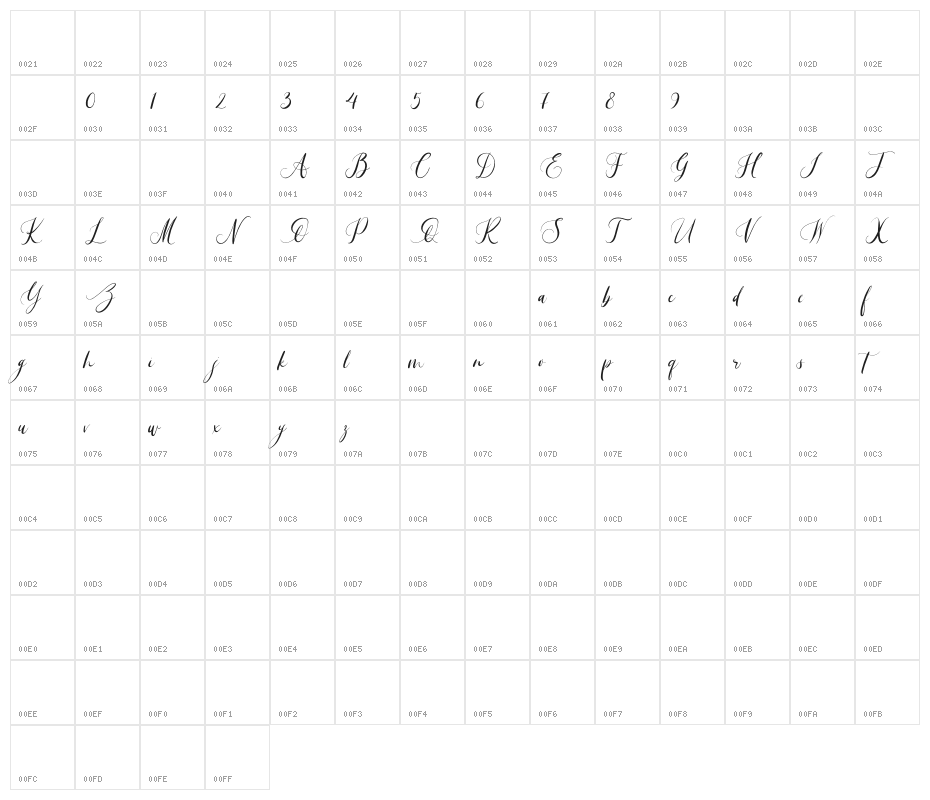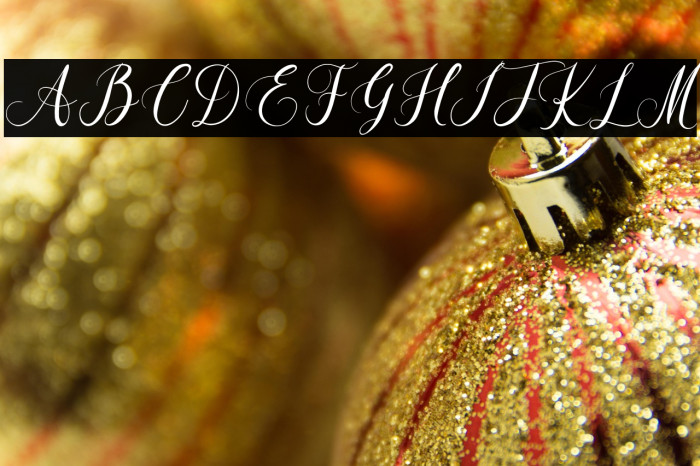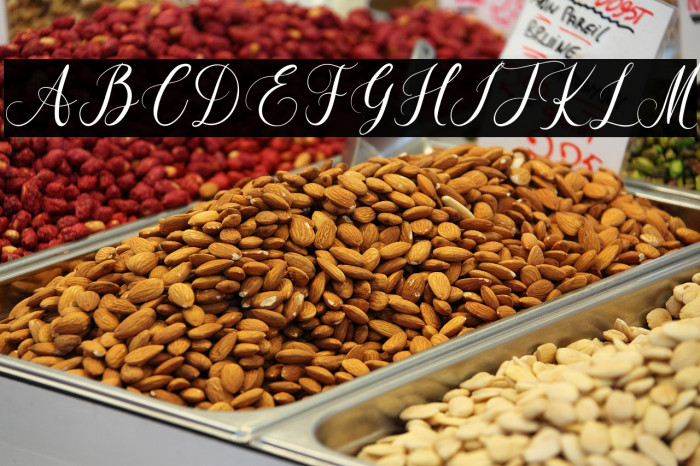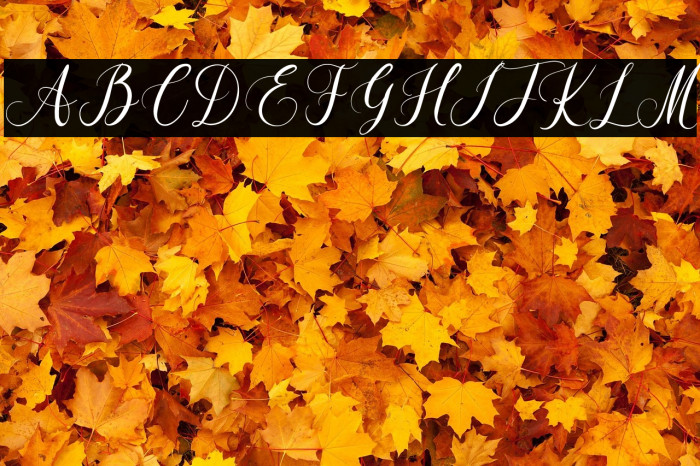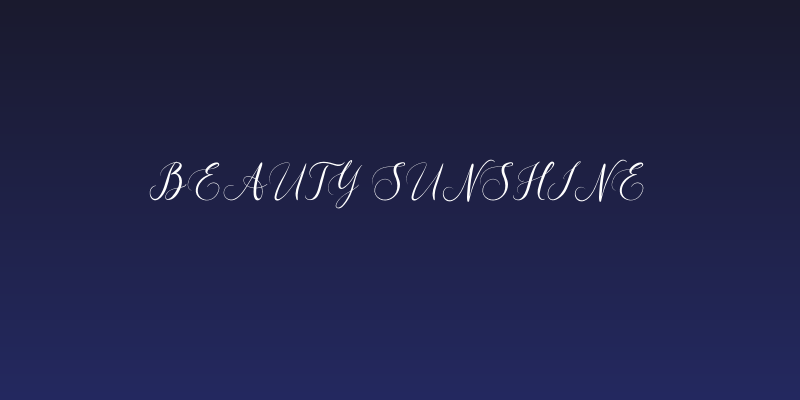
Beauty Sunshine Font
Beauty Sunshine Description
This elegant script font features a flowing, cursive style with high contrast between thick and thin strokes. The uppercase letters are ornate and sophisticated, with graceful loops and swashes that add a touch of luxury. The lowercase letters maintain a consistent style, offering a smooth and fluid connection between characters. The numbers are equally stylish, with a distinctive flair that complements the overall aesthetic. This font is perfect for creating a sense of elegance and refinement, making it ideal for formal invitations, branding, and decorative projects.
| Use Case | Invitations, Branding, Decorative |
| Proposed Projects | Ideal for wedding invitations, luxury branding, and decorative projects. |